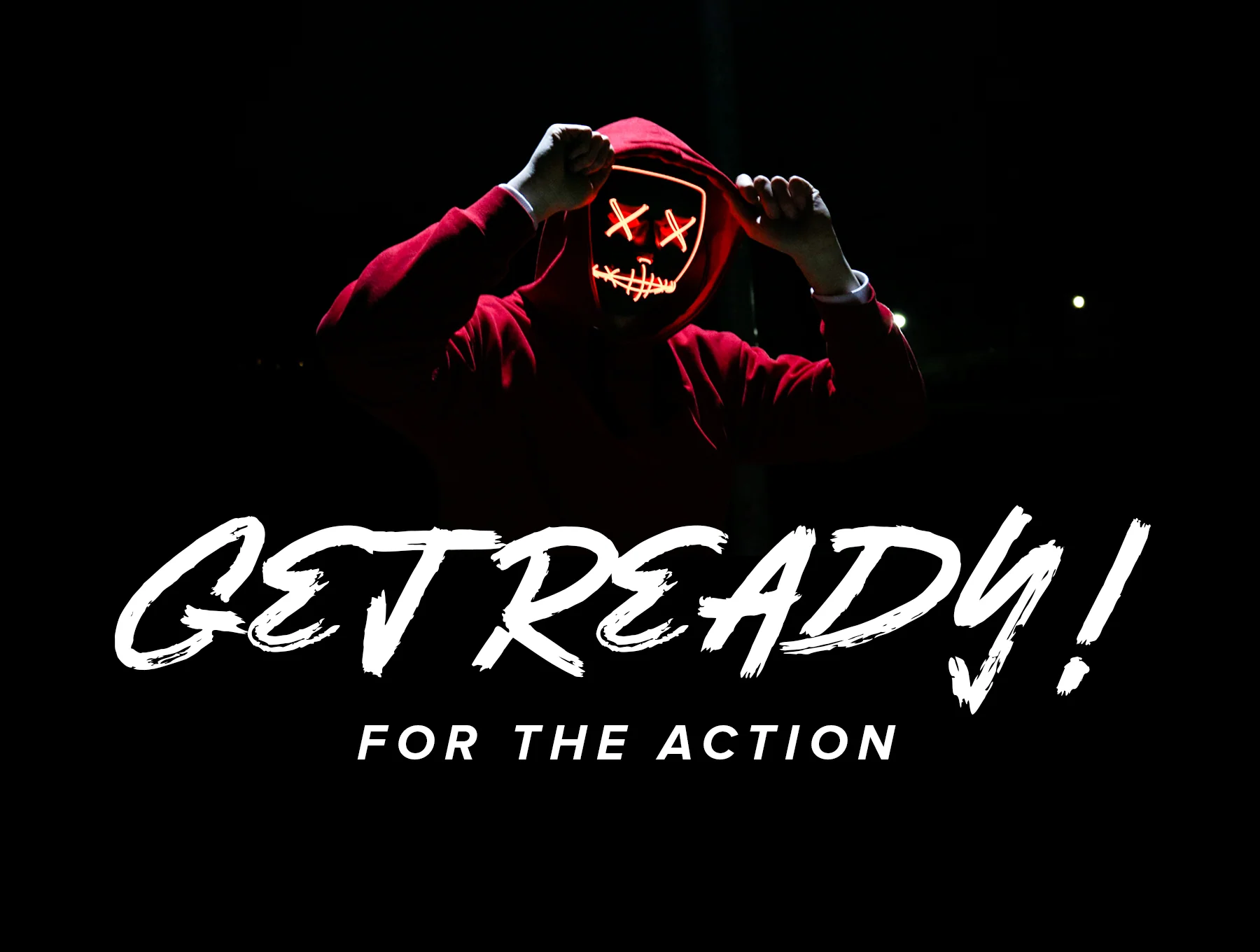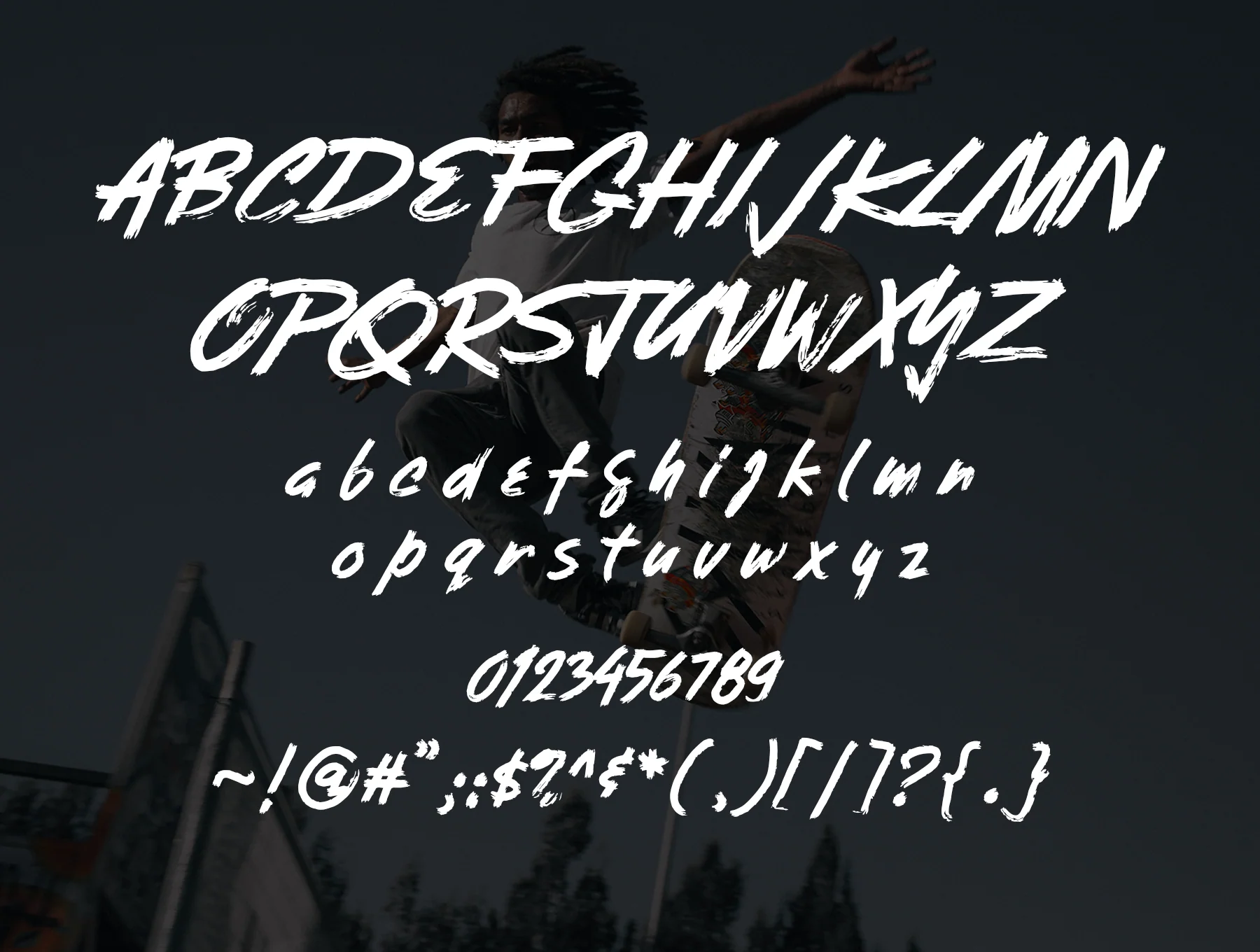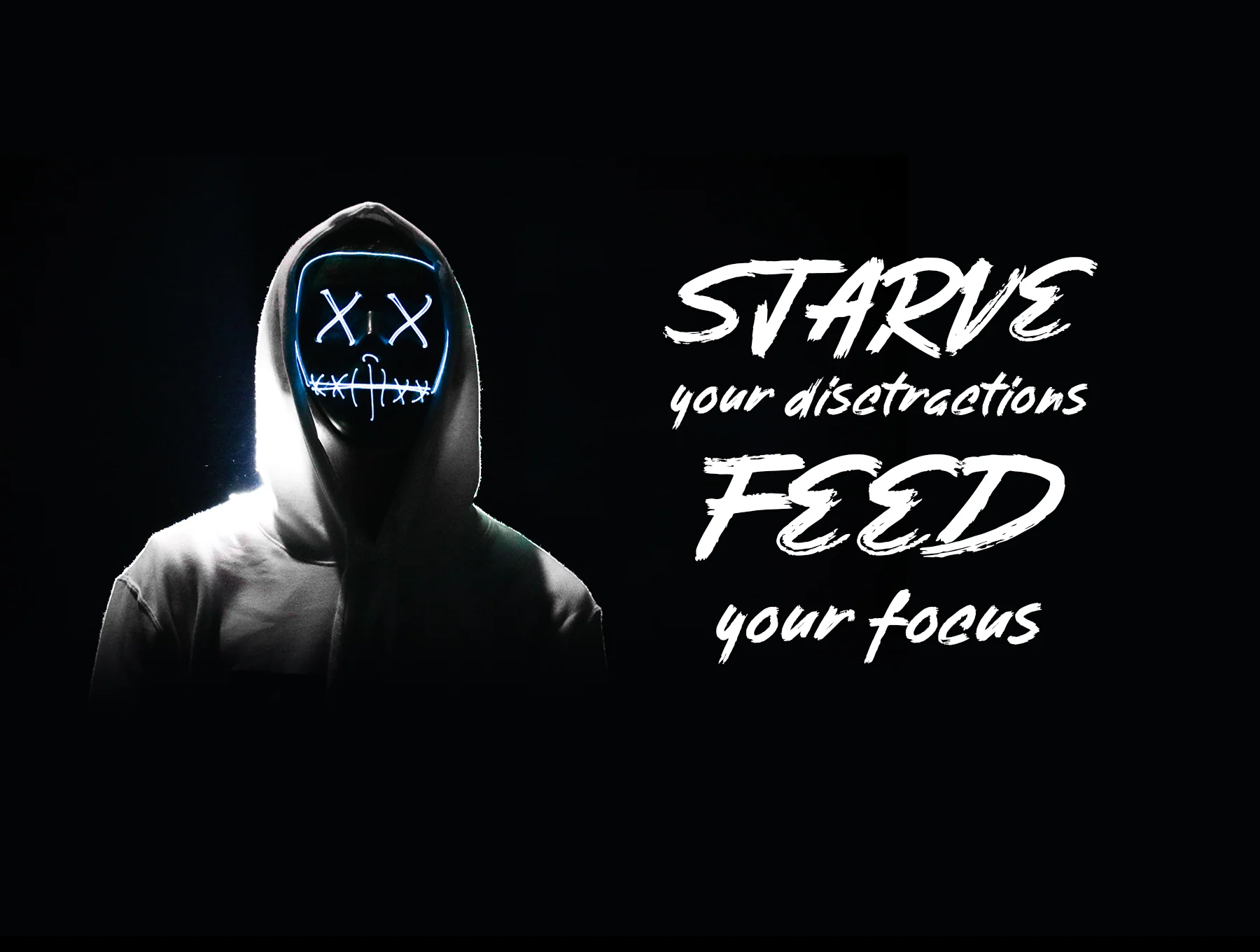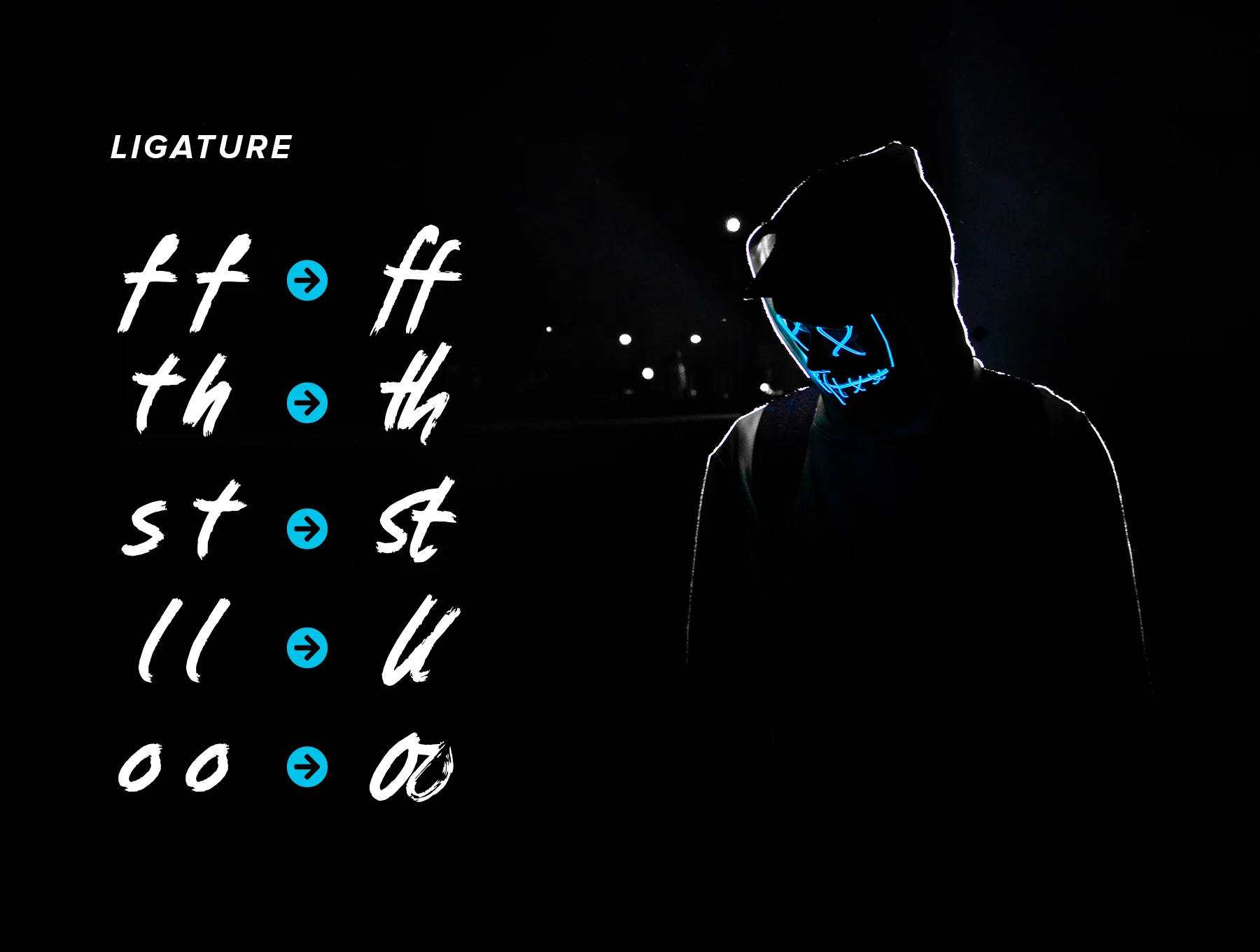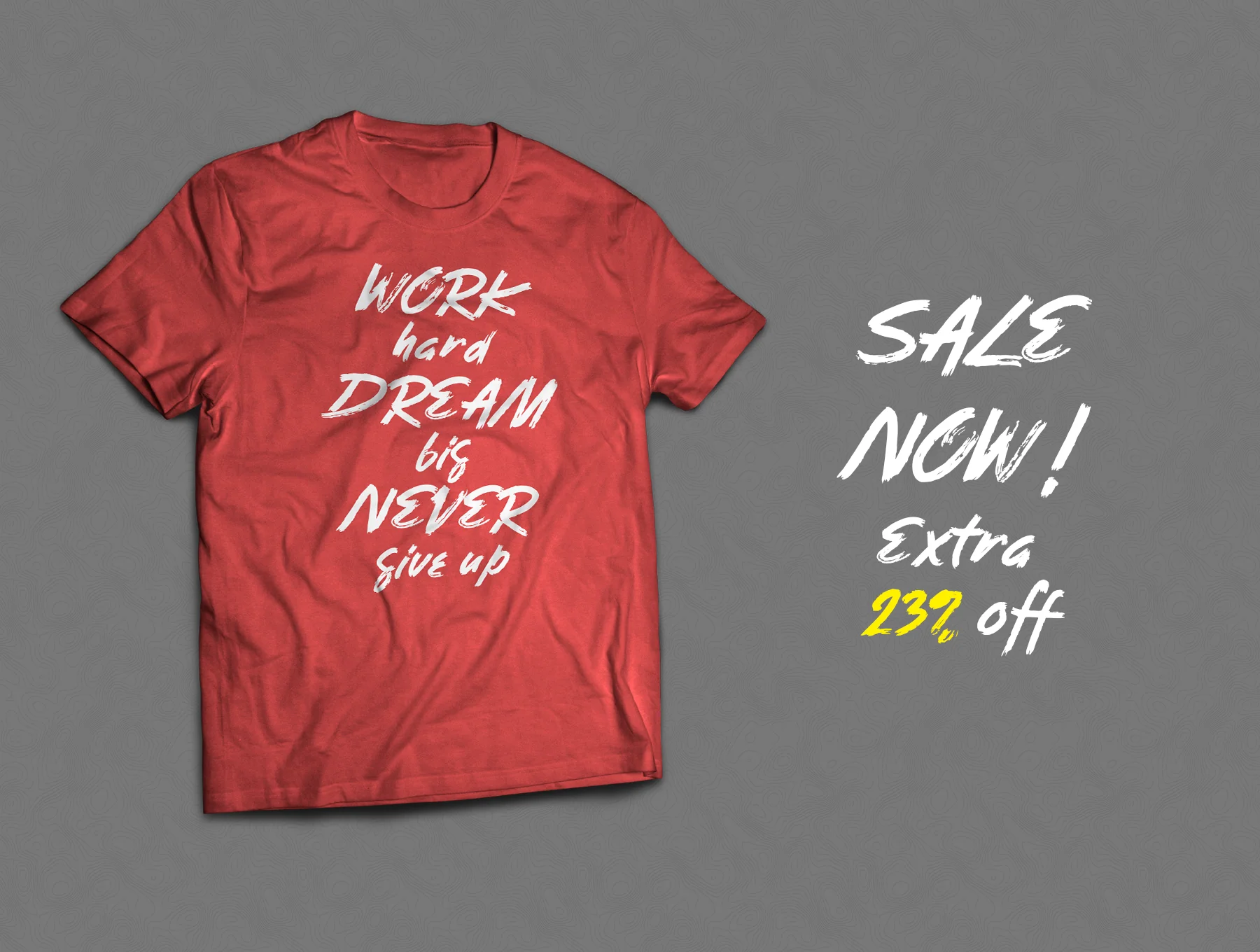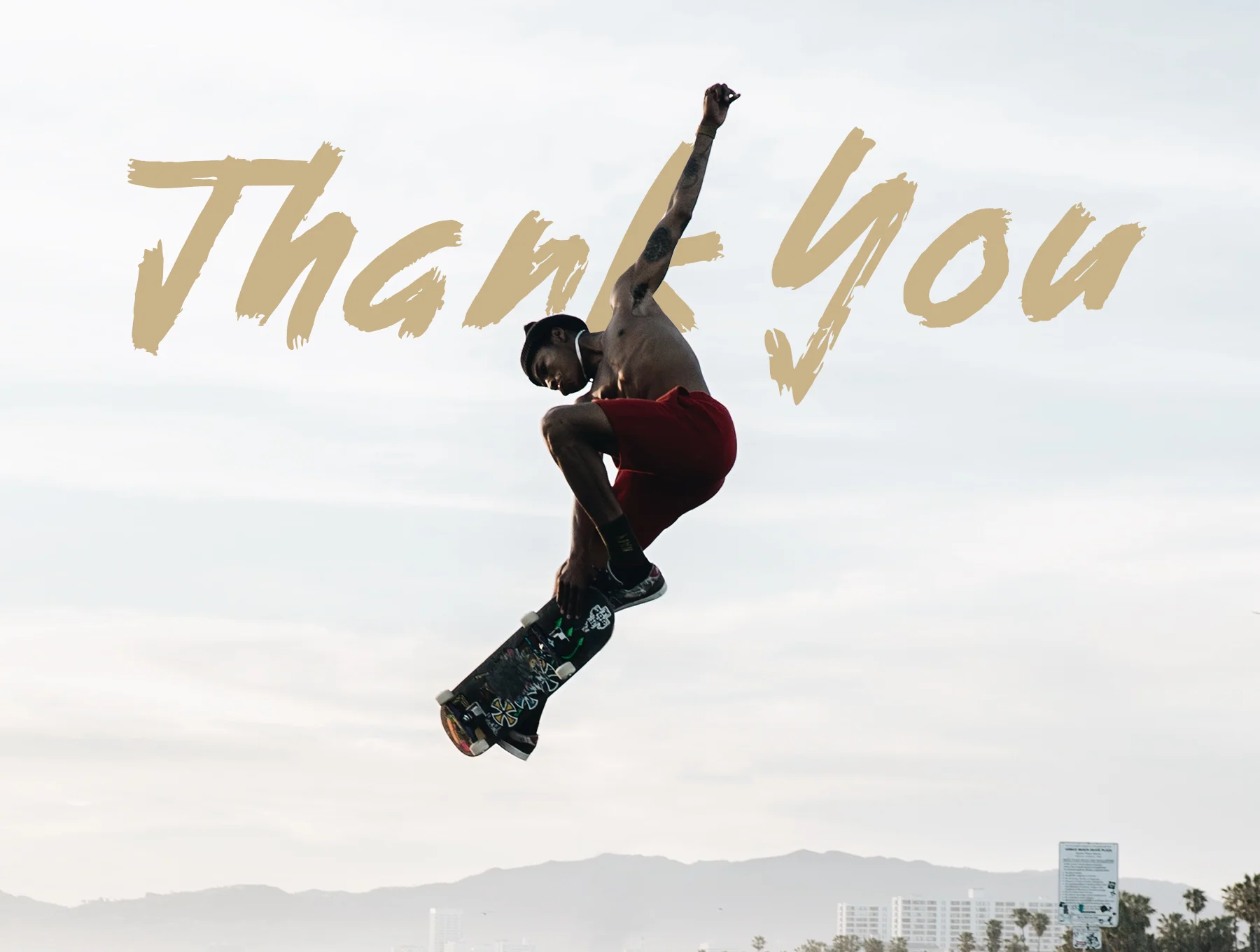
Sandora Font
Brush-style typeface
Capital and Small Letters
Connected Letterforms
Numerals and Punctuation Marks
Sandora is a brush-style font ideal for creating T-shirt designs, book covers, social media banners, and various advertising materials.